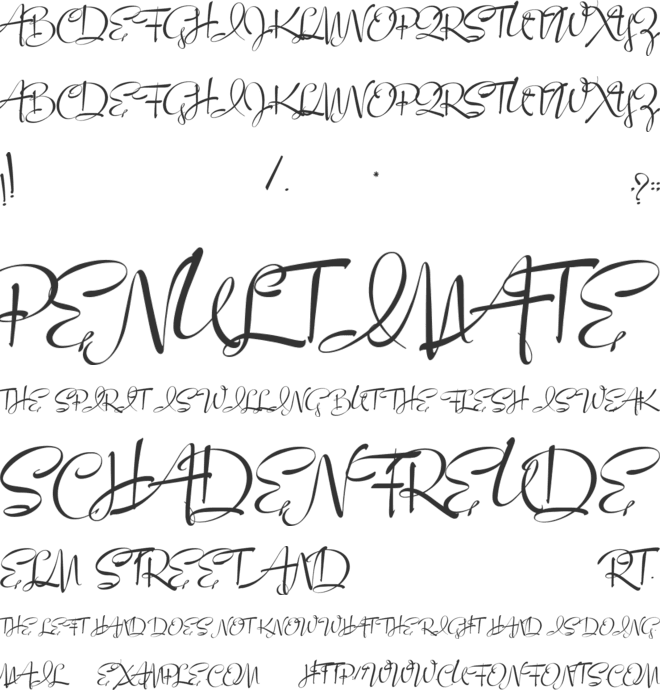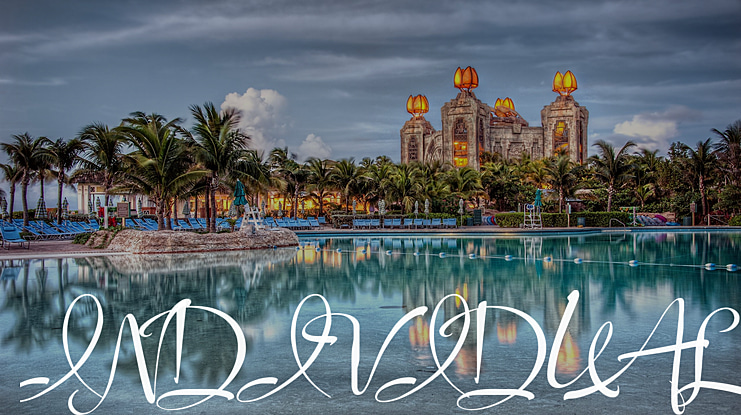
Individual Font
Capital letters originally named "Individual Capitals" taken from: The ABC of Lettering by J.I. Biegeleisen. Harper & Row Publishers NY 1965. ISDN 65-14683. Most lower cases created based on the words: from, the and Up by typographer Carl Holmes.